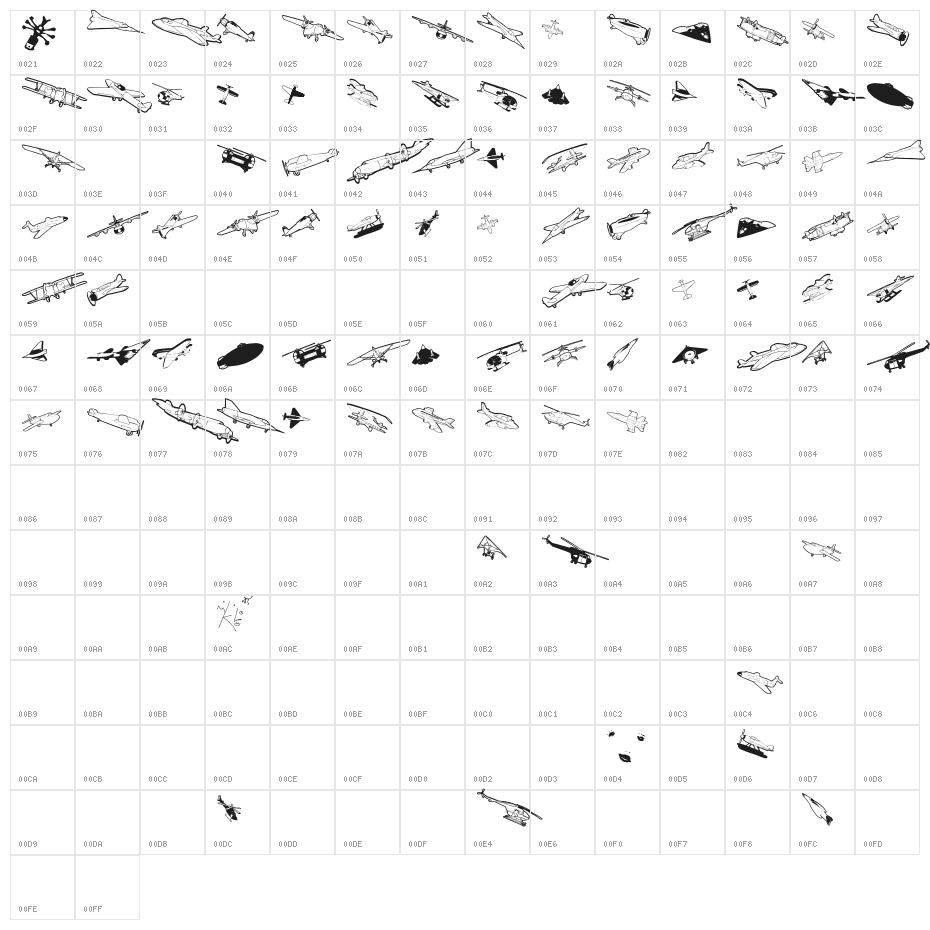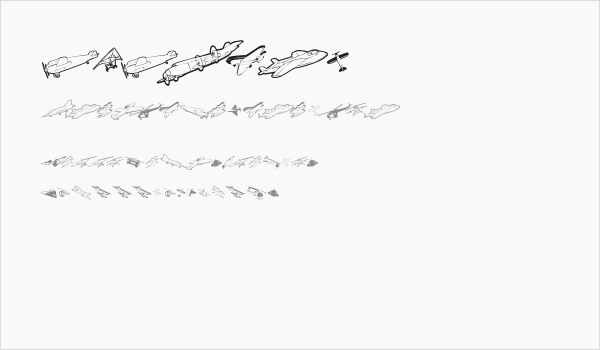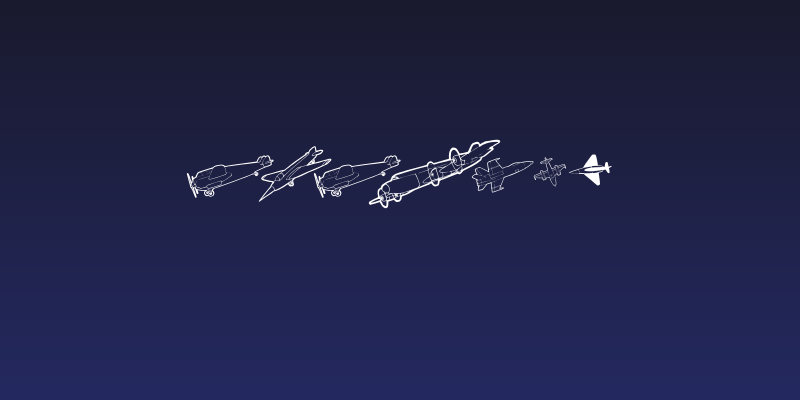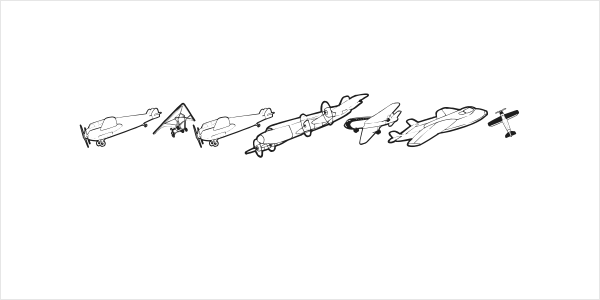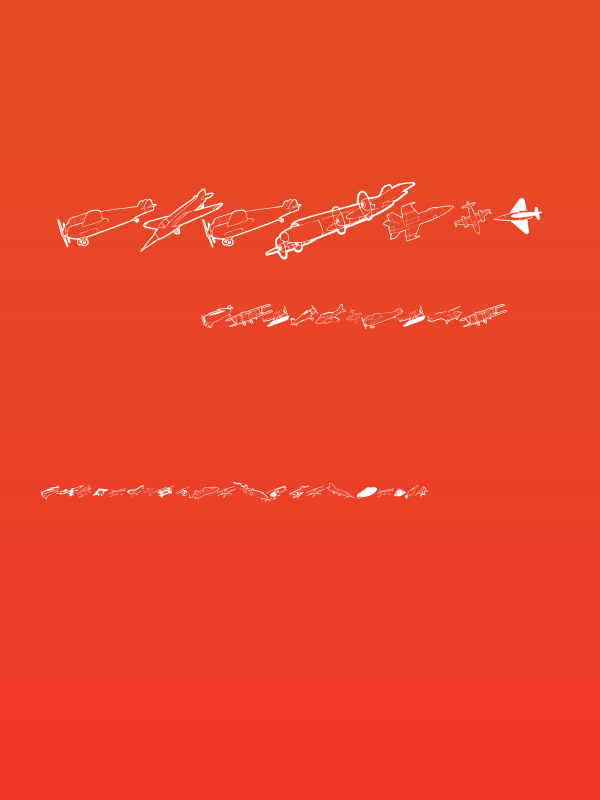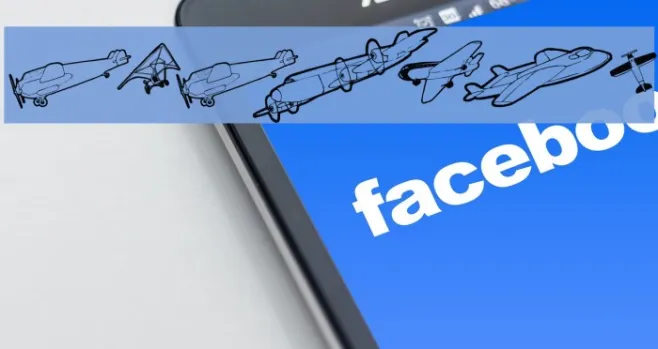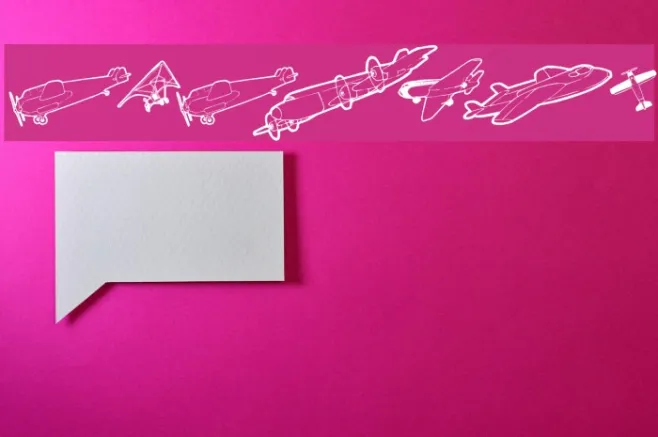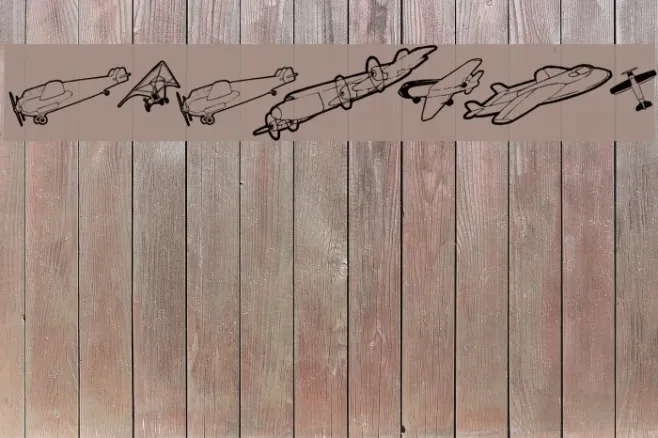
AsABird Font
AsABird Description
A decorative display font composed of various hand-drawn airplane and helicopter illustrations representing each character, with playful and whimsical line art. The glyphs are highly pictorial, making each letter or symbol a unique aircraft drawing rather than a traditional typographic form.
| Overall Style | Whimsical, Playful, Decorative |
| Use Case | Logos, Posters, Themed Headlines, Children's Materials |
| Proposed Projects | Children's books, aviation-themed posters, party invitations, educational materials, novelty t-shirts, and event flyers. |